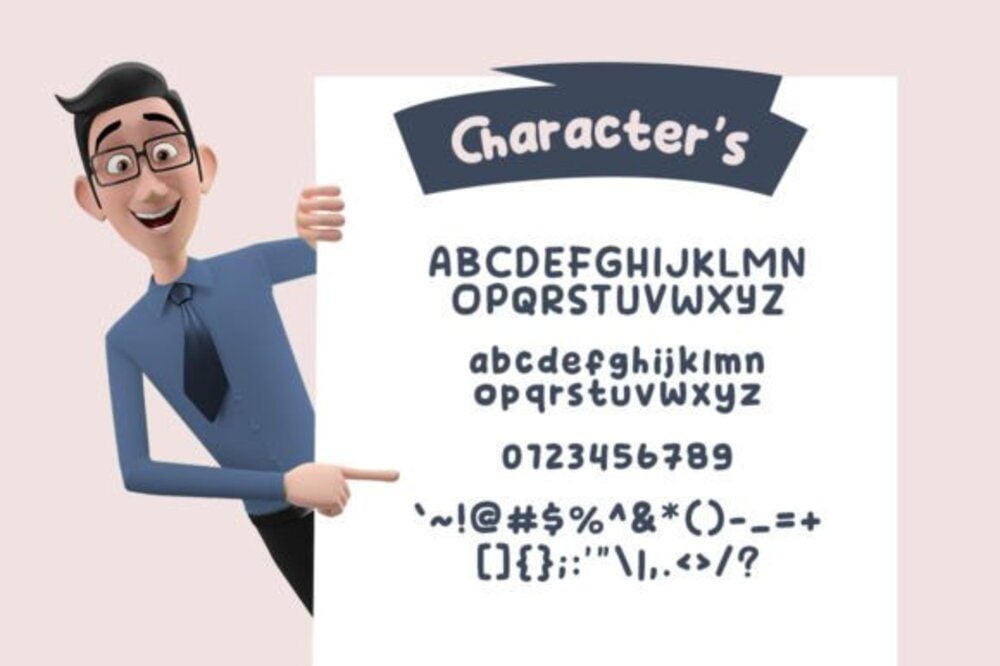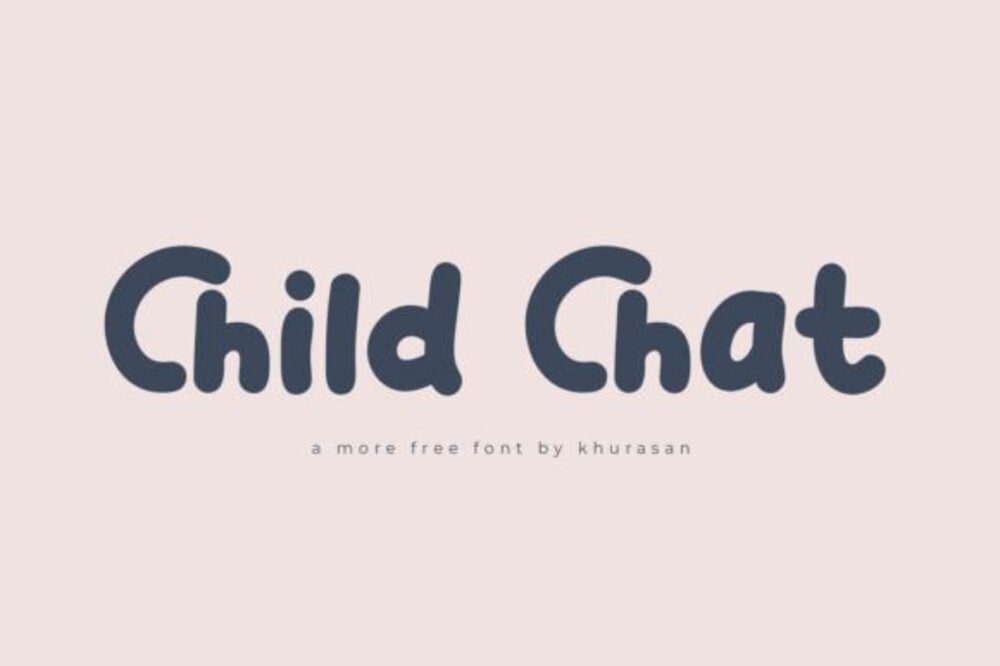
Child Chat Font
Child chat font is a playful and whimsical typeface designed to emulate the look of a child’s handwriting. It features rounded edges, uneven letterforms, and a casual style that feels approachable and fun. Ideal for children’s books, educational materials, and playful designs, it evokes a sense of creativity and innocence. The font is legible and cheerful, making it perfect for kid-friendly communication and interactive media projects.